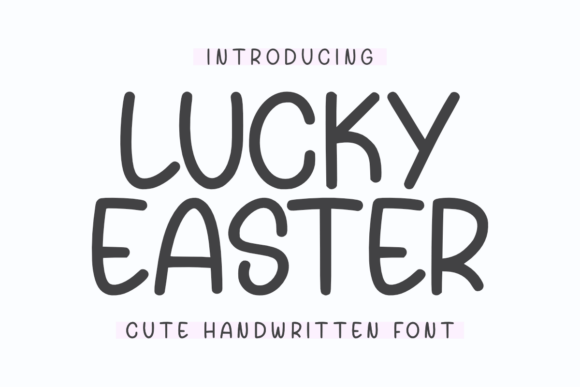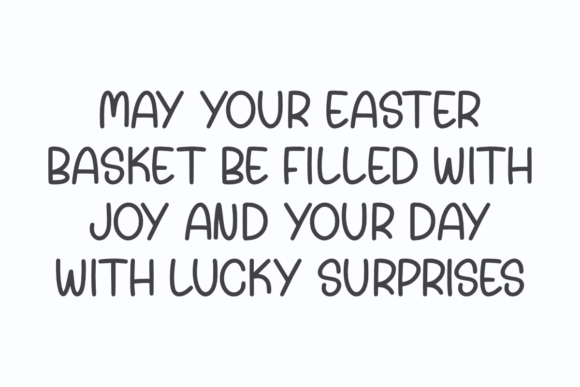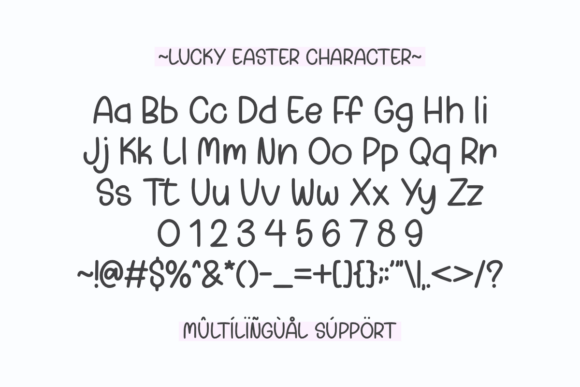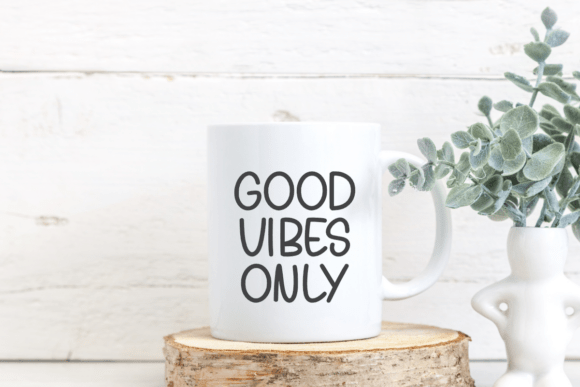
Lucky Easter Font
About the Lucky Easter Font
Elevate your designs with Lucky Easter Font, a font that combines sophistication with readability. Lucky Easter is a cute and playful handwritten font, perfect for planners, stickers, cards, quotes, and craft projects. Ideal for creative moms who love DIY, journaling, and Cricut crafts!
Its playful, handwritten style makes it highly effective for projects requiring a friendly, approachable feel. Consider using it for branding related to children’s products, crafting businesses, or events with a lighthearted tone. It also excels in short-form applications like logos, social media graphics, and invitations. Avoid using Lucky Easter for large blocks of text or body copy; its informal nature isn’t suited to readability in extended passages.
Pairing Lucky Easter with a clean sans-serif font like Open Sans for body text creates a visually appealing contrast, balancing the handwritten informality with modern readability. Alternatively, a simple serif like Lora would add a touch of classic elegance, softening the playful energy. For a more whimsical feel, consider pairing it with a script font, but ensure its style complements rather than competes with Lucky Easter’s charm.
The font’s overall personality is undeniably cheerful and approachable, conveying a sense of fun and creativity. This makes it unsuitable for projects requiring a formal or sophisticated tone.
Lucky Easter Font Usage Examples
Lucky Easter Font Example